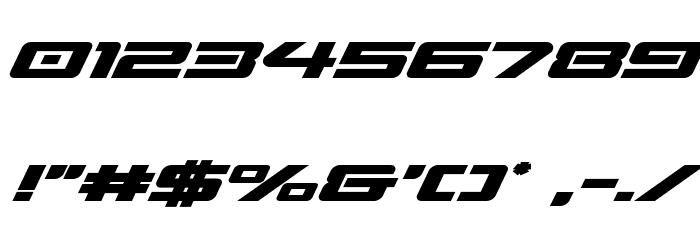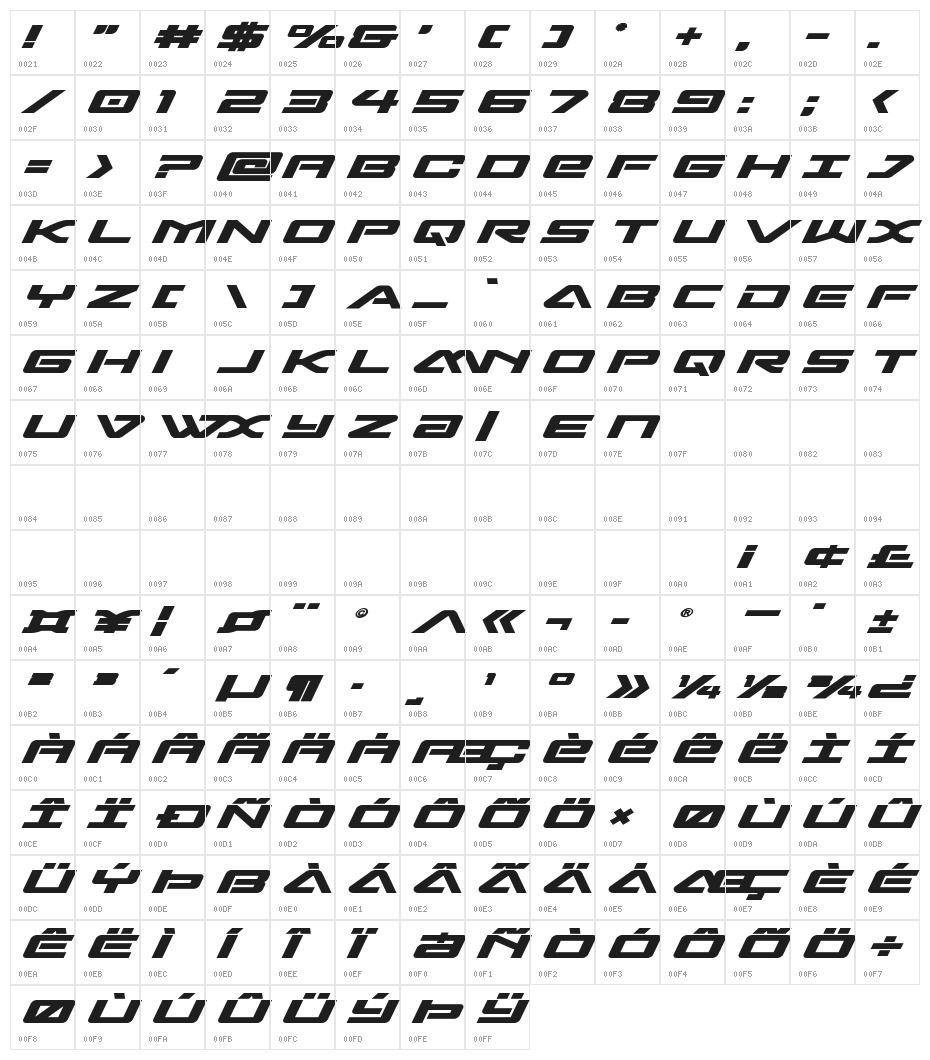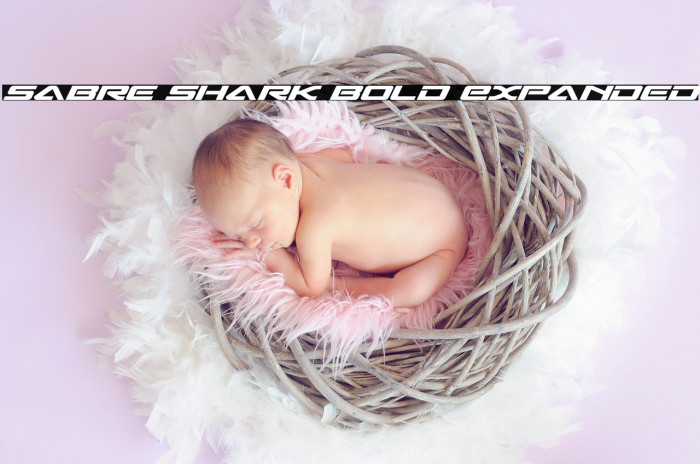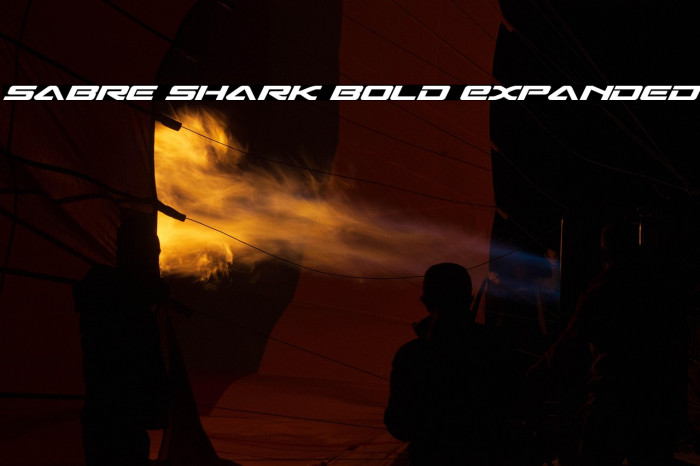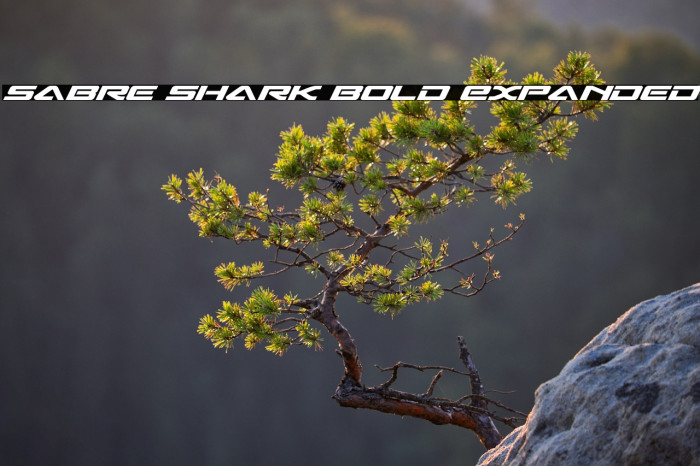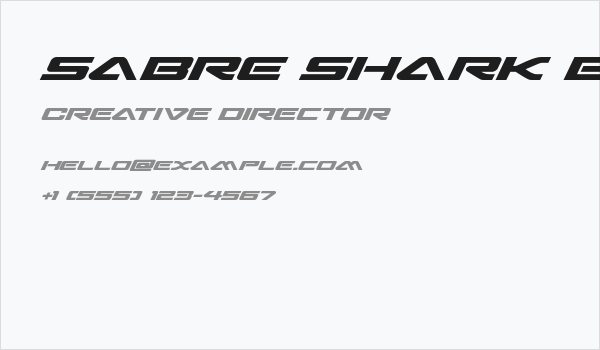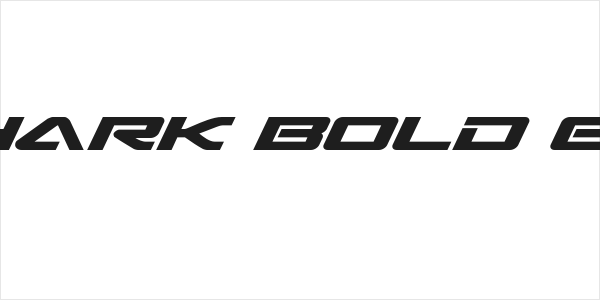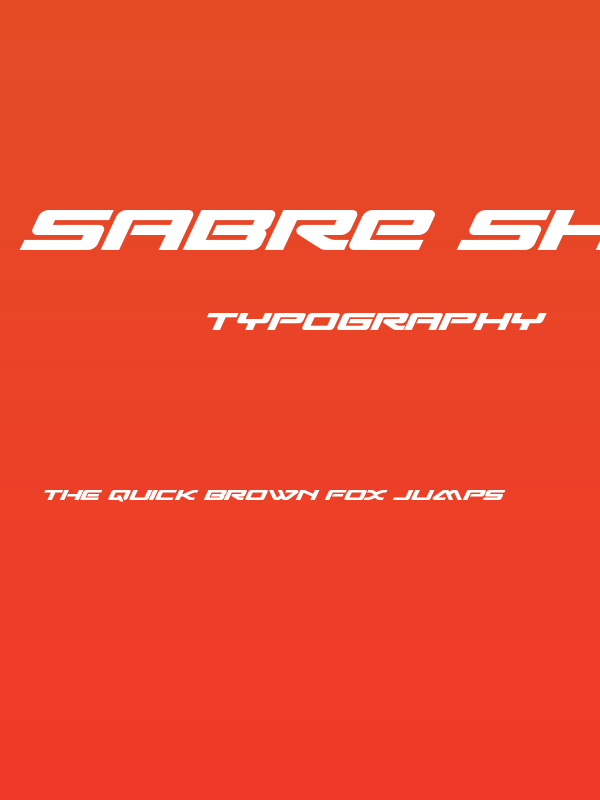
Sabre Shark Bold Expanded Font
Sabre Shark Bold Expanded Description
This font features a bold and expanded style with a futuristic and angular design. The characters are sharply defined with a distinct geometric influence, creating a sense of speed and modernity. The uppercase letters are particularly striking, with strong lines and a dynamic slant that suggests movement. The numerals and special characters maintain this cohesive style, ensuring versatility across various applications. The overall appearance is sleek and assertive, making it ideal for projects that require a strong visual impact.
| Use Case | Logos, Headlines, Branding |
| Proposed Projects | Ideal for branding, sports team logos, automotive designs, and technology-related projects. |